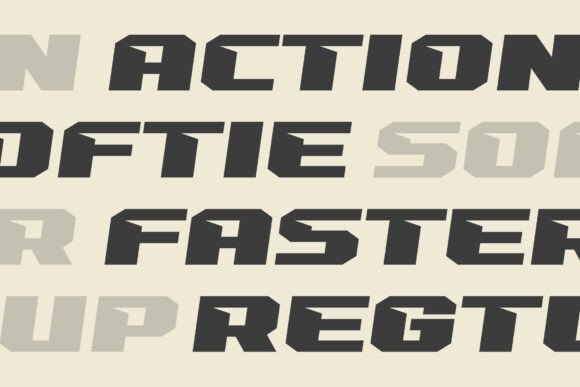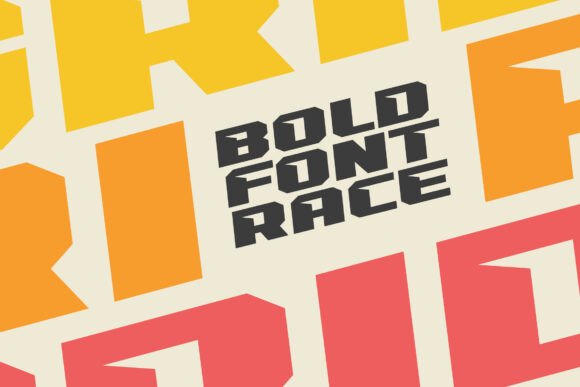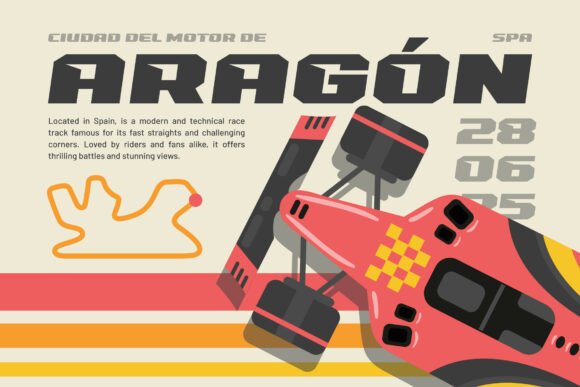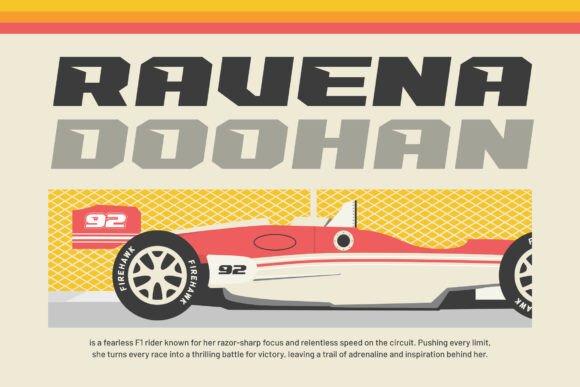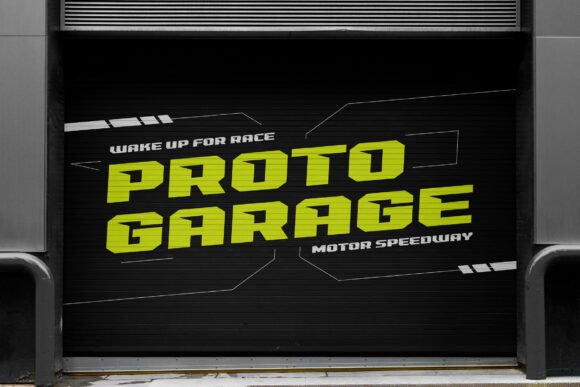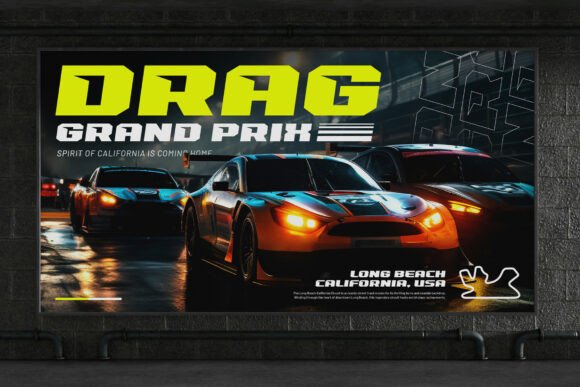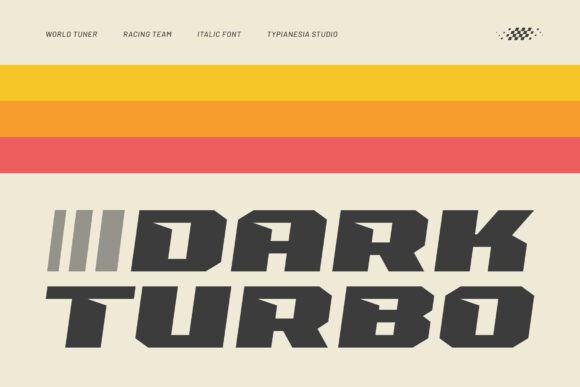
Unleash the Power of Dark Turbo: The Ultimate Bold Italic Racing Font
Are you looking for a font that embodies the thrill of speed, energy, and competition? Look no further than Dark Turbo, a bold, italicized display font designed to make a lasting impact. With its sharp angles, dynamic slants, and powerful character shapes, Dark Turbo is the perfect choice for designers and crafters who want to capture the essence of motorsports, high-stakes competition, and action-packed themes.
What is Dark Turbo Font?
Dark Turbo is a bold, italicized display font built for speed, energy, and impact. Its unique design elements are inspired by the world of motorsports, making it an ideal choice for racing graphics, automotive branding, sports titles, gaming interfaces, and action-themed designs. The font’s aggressive, fast-forward motion effect helps emphasize intensity, performance, and movement, making it perfect for projects that demand power, presence, and precision.
Key Features of Dark Turbo Font
- Bold and Italicized Design: Dark Turbo’s bold and italicized design makes it perfect for headlines, team logos, event branding, posters, packaging, apparel, digital ads, and promotional materials.
- Sharp Angles and Dynamic Slants: The font’s sharp angles and dynamic slants give it a sense of movement and energy, making it ideal for designs that require a sense of speed and competition.
- Powerful Character Shapes: Dark Turbo’s powerful character shapes make it perfect for designs that require a strong visual punch.
- High-Quality Vector Graphics: The font is designed using high-quality vector graphics, making it scalable to any size without losing its quality.
Use Cases for Dark Turbo Font
Dark Turbo is a versatile font that can be used in a variety of design projects, including:
- Racing Graphics: Dark Turbo is perfect for designing racing graphics, such as logos, posters, and social media graphics for racing teams and events.
- Automotive Branding: The font’s bold and italicized design makes it ideal for automotive branding, including car logos, dealership branding, and marketing materials.
- Sports Titles: Dark Turbo can be used to create sports titles, such as logos, jerseys, and marketing materials for sports teams.
- Gaming Interfaces: The font’s bold and dynamic design makes it perfect for gaming interfaces, including game titles, menus, and UI elements.
- Action-Themed Designs: Dark Turbo can be used to create action-themed designs, such as posters, flyers, and social media graphics for movies, TV shows, and events.
Benefits of Using Dark Turbo Font
Using Dark Turbo font offers several benefits, including:
- Instant Recognition: The font’s bold and italicized design makes it instantly recognizable, grabbing the attention of your audience and conveying a sense of speed and energy.
- Professional Look and Feel: Dark Turbo’s high-quality design and vector graphics give your designs a professional look and feel, perfect for businesses and organizations that want to make a strong impression.
- Versatility: The font’s versatility makes it suitable for a wide range of design projects, from racing graphics to gaming interfaces.
- Easy to Read: Despite its bold design, Dark Turbo is easy to read, making it perfect for use in headlines, titles, and other design elements.
How to Use Dark Turbo Font
- Use it for Headlines and Titles: Dark Turbo is perfect for use in headlines and titles, where its bold and italicized design can make a strong impact.
- Experiment with Colors and Textures: The font’s bold design makes it perfect for experimenting with different colors and textures, adding depth and interest to your designs.
- Pair it with Other Fonts: Dark Turbo can be paired with other fonts to create a unique and visually appealing design.
Dark Turbo is a powerful and versatile font that is perfect for designers and crafters who want to create bold and dynamic designs. Its unique design elements, including sharp angles, dynamic slants, and powerful character shapes, make it ideal for a wide range of design projects, from racing graphics to gaming interfaces. With its ease of use and high-quality design, Dark Turbo is a must-have font for any designer or crafter looking to add a touch of speed and energy to their designs.